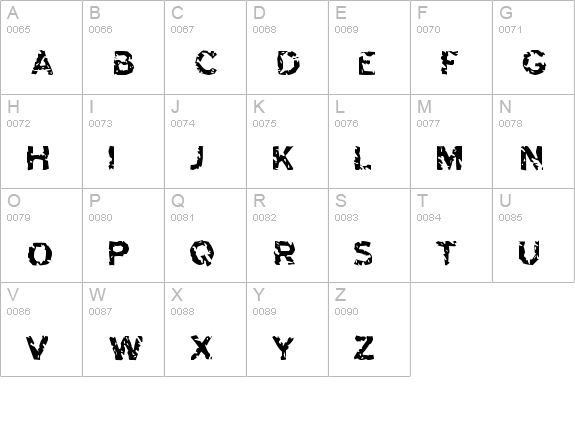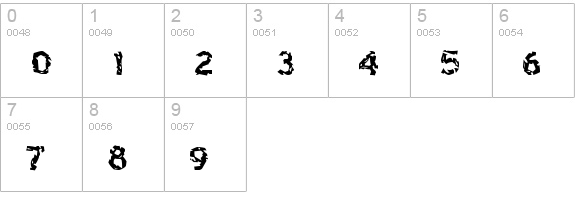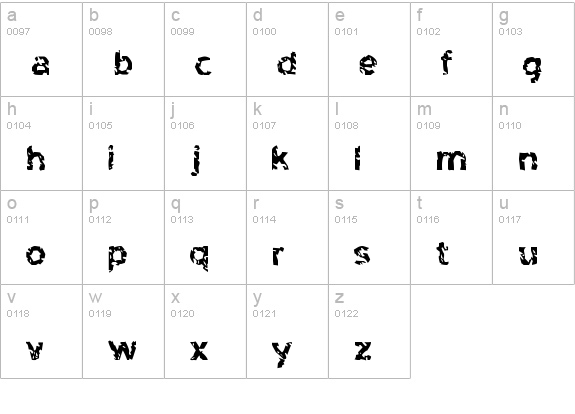
Introducing Highway to Heck font - a bold and dynamic typeface that is sure to make a statement in any design project. This font exudes a sense of power and energy, perfect for conveying a strong and impactful message to your audience. With its sharp edges and modern aesthetic, Highway to Heck font is ideal for headlines, posters, and branding projects that demand attention. What's even better is that Highway to Heck font is available for free download at FontsMarket.com, making it easily accessible for all designers looking to add a touch of edge to their creations. Don't miss out on the opportunity to elevate your designs with this striking font that will set you apart from the rest. Download Highway to Heck font today and let your creativity hit the fast lane!